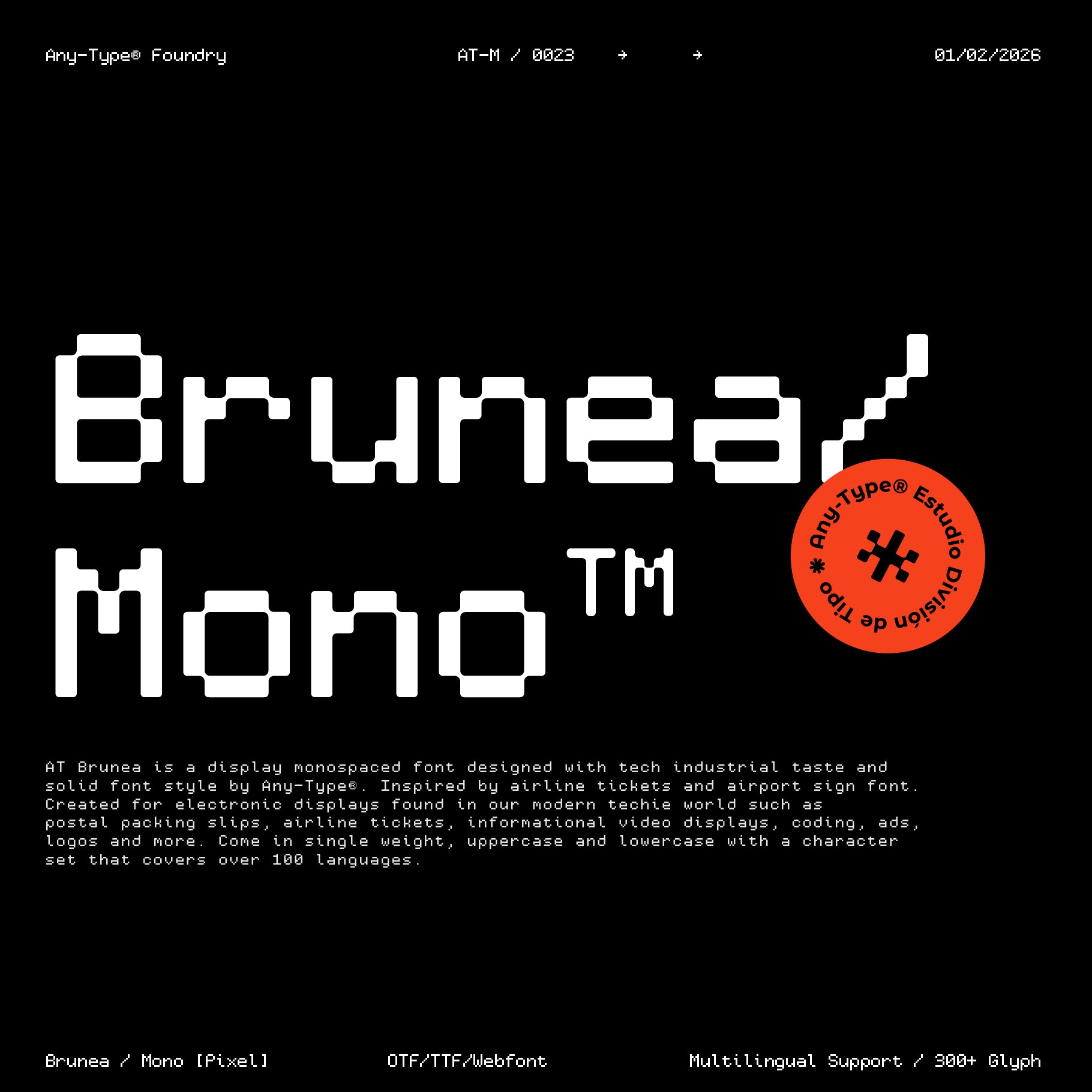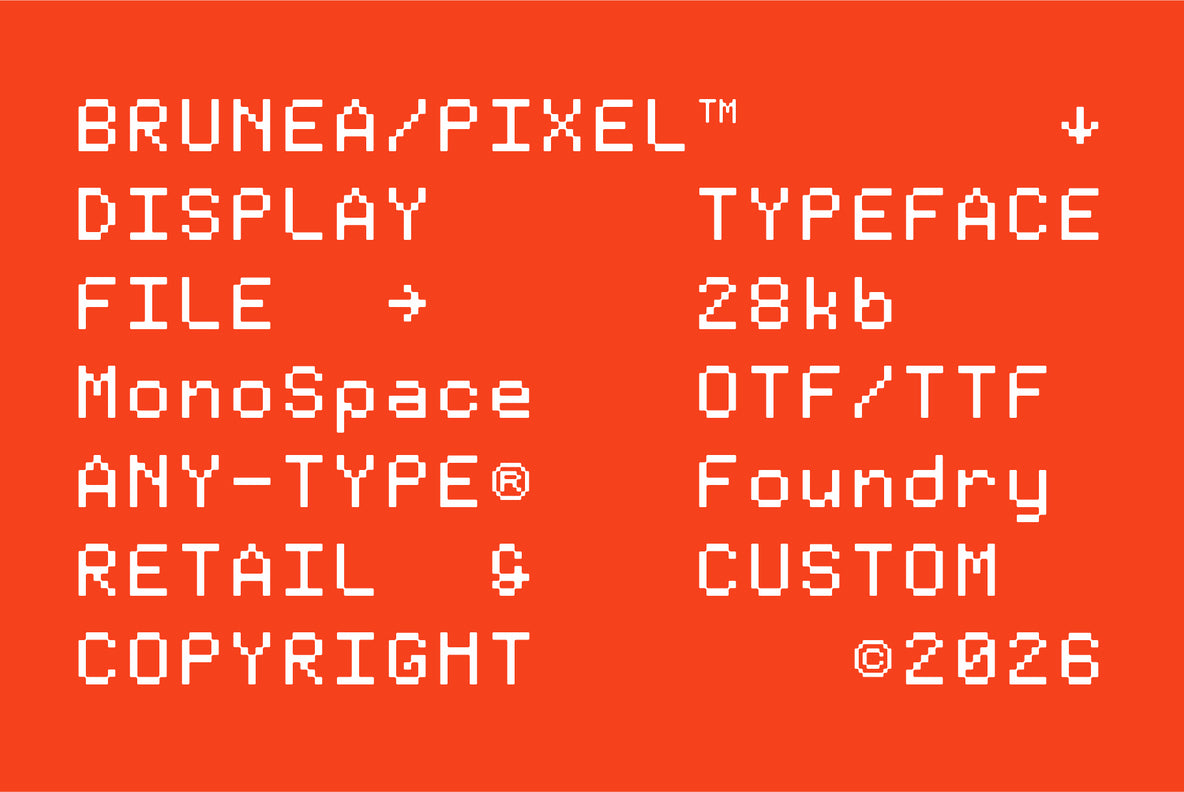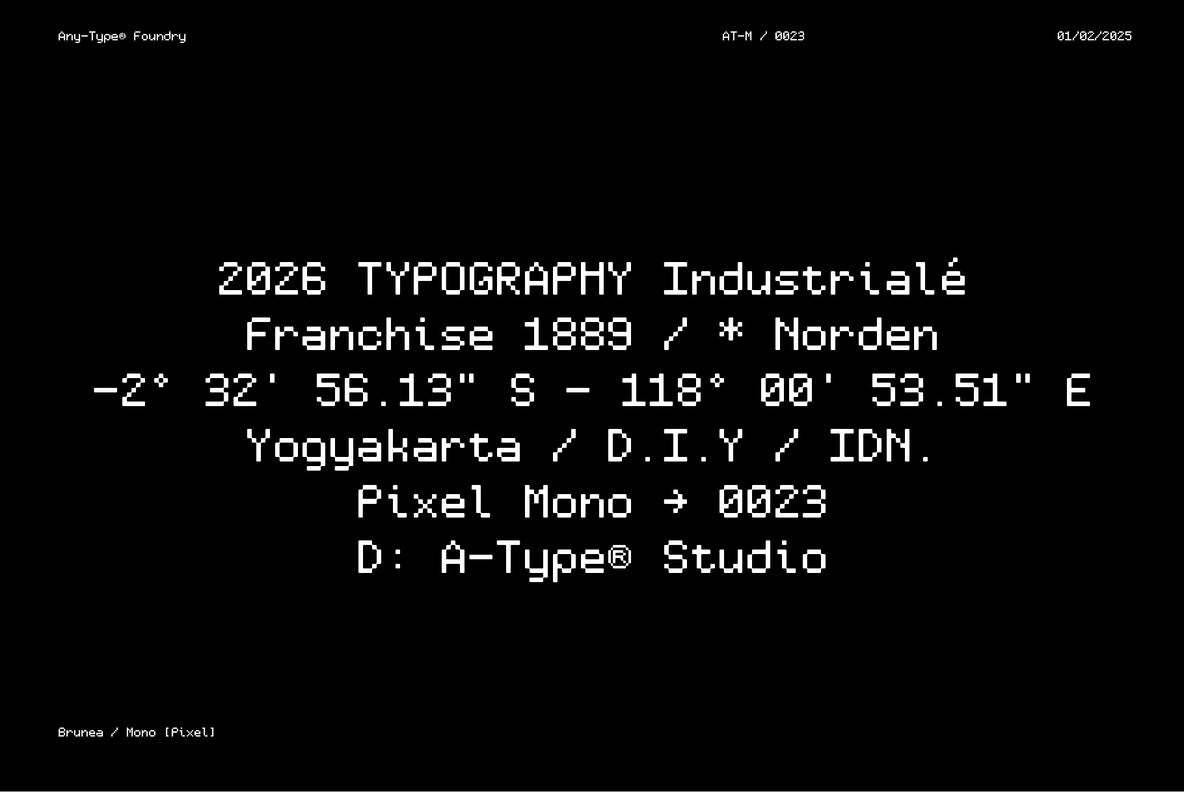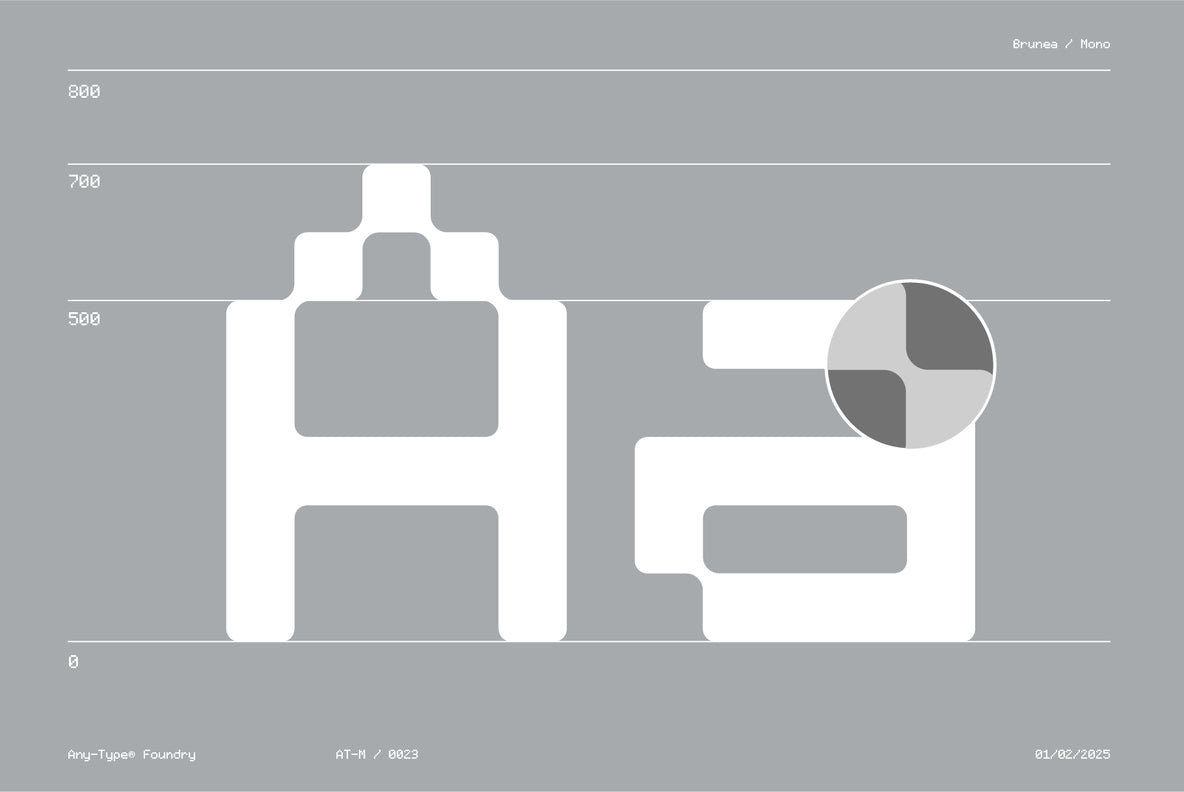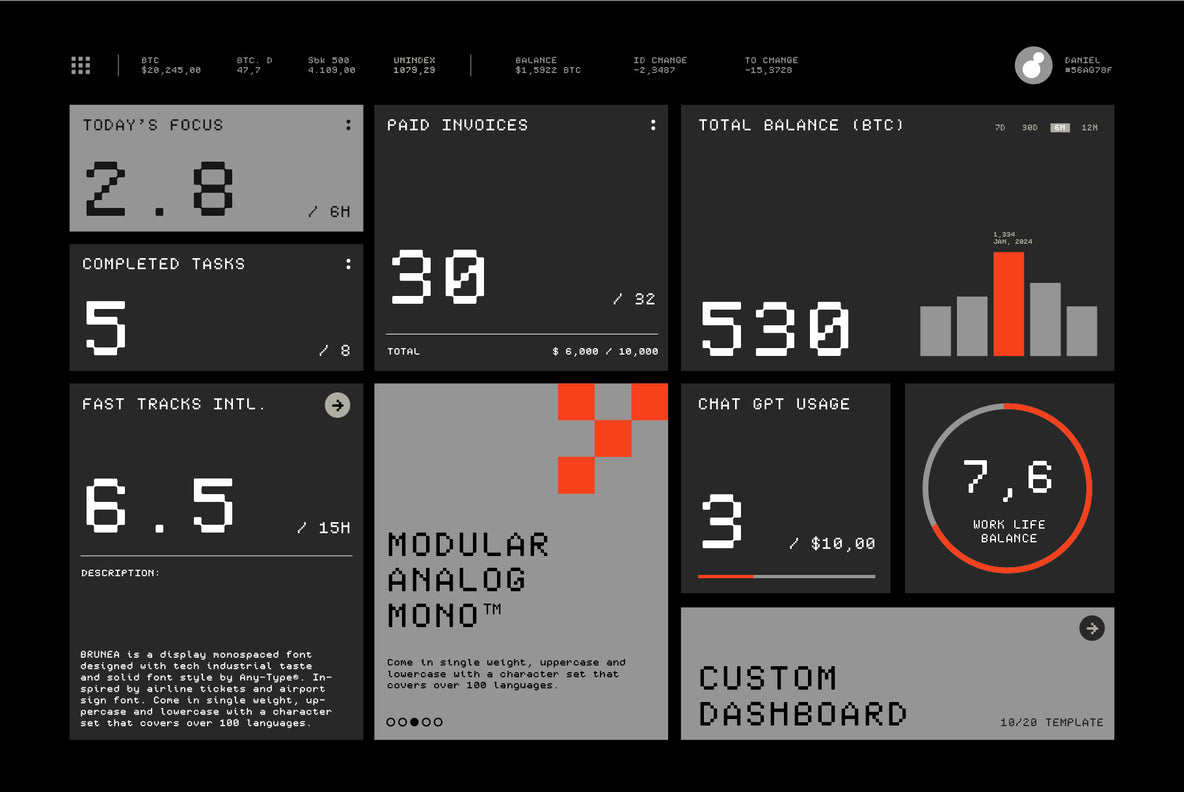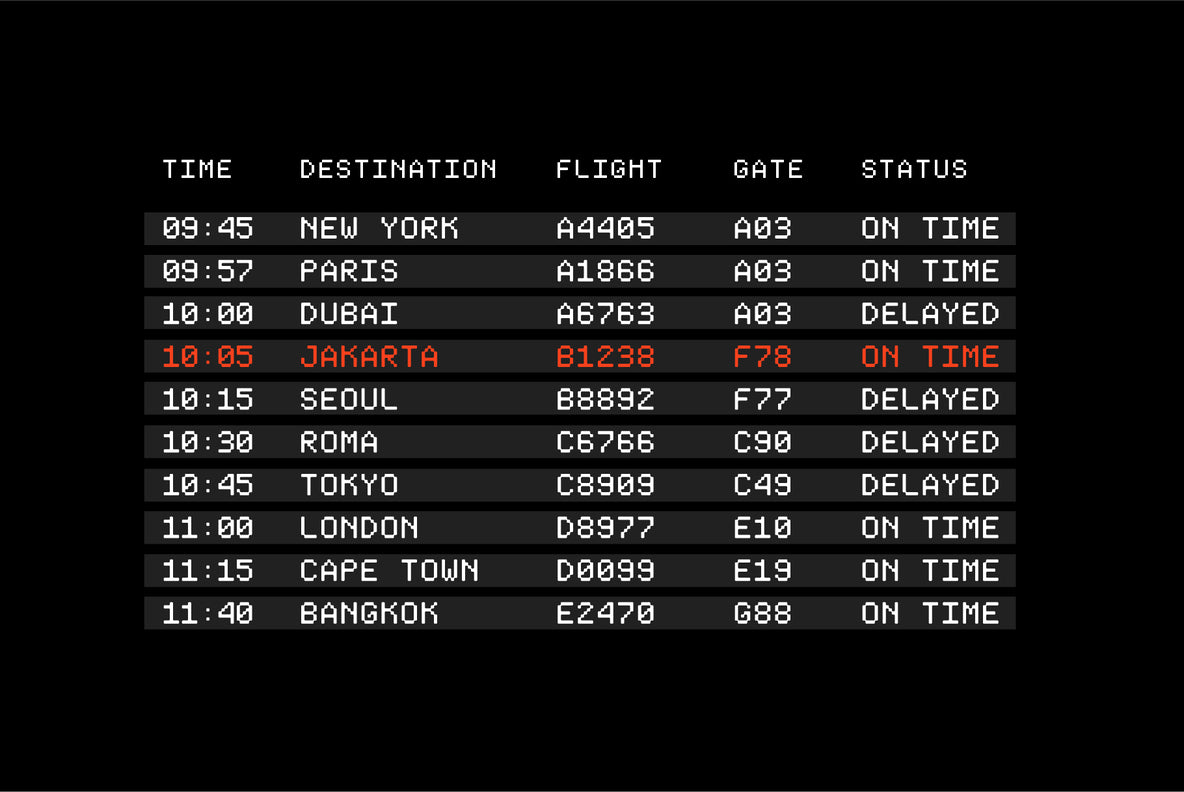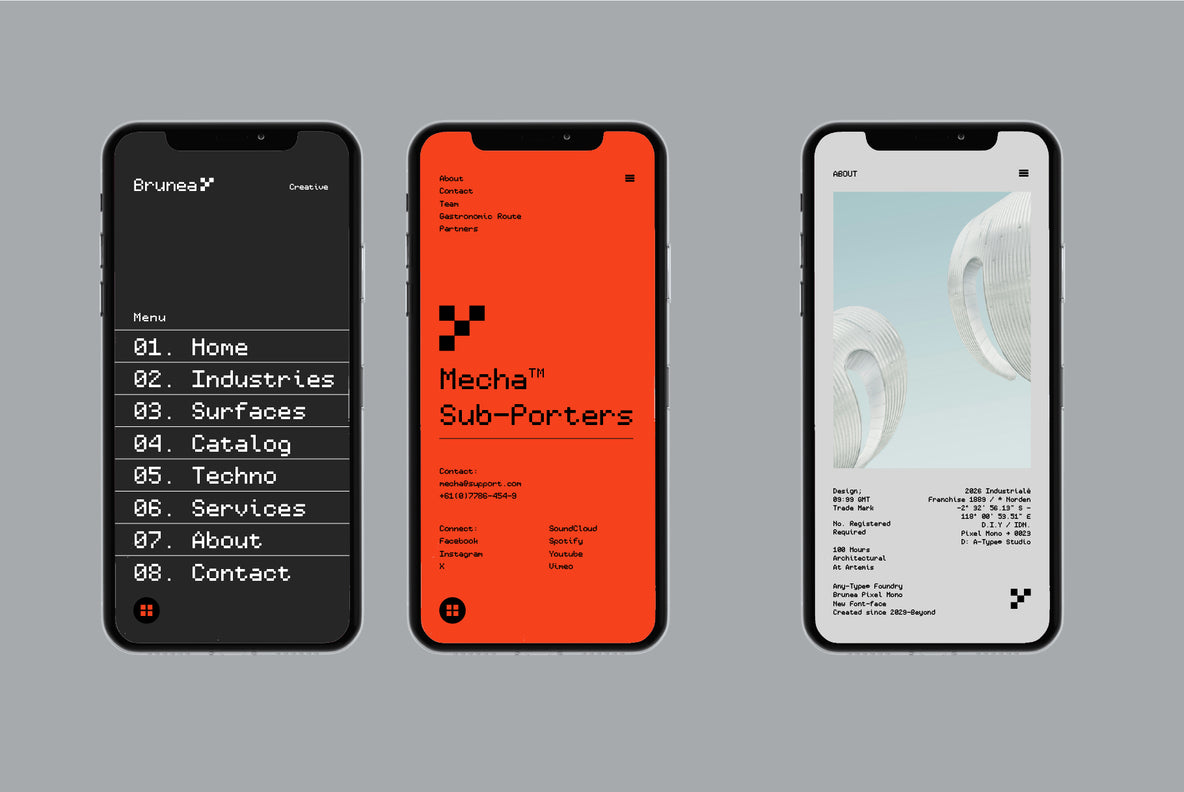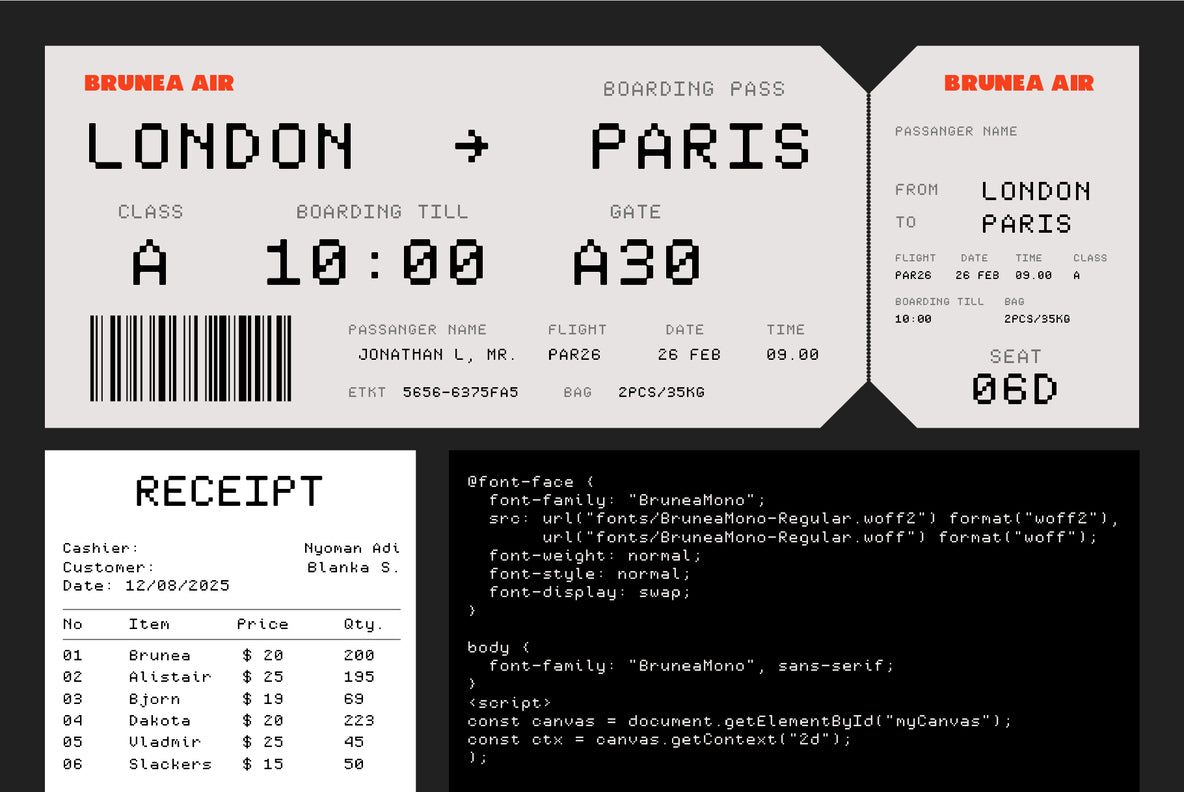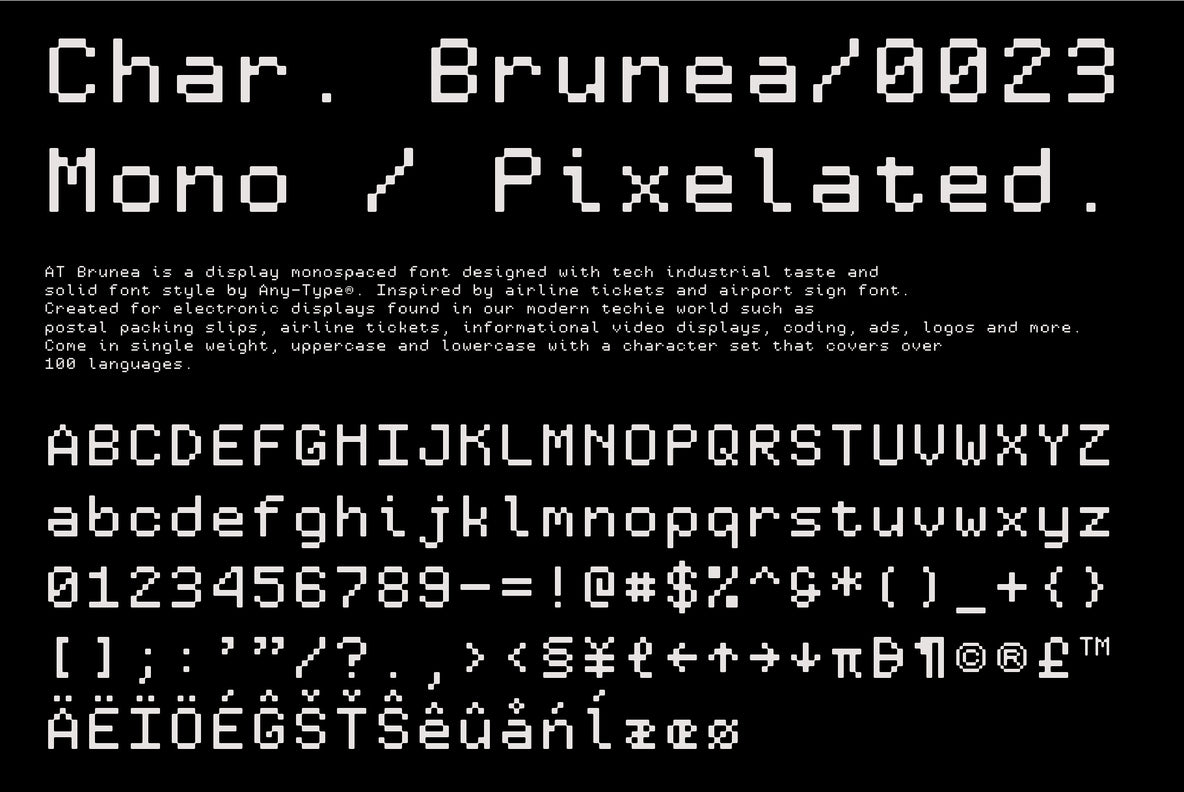
Brunea Mono – Pixel Monospaced Display Font
Brunea Mono is a modern monospaced display font featuring a bold pixel structure and a clean monospace grid, designed for clarity and precision in digital environments. It includes uppercase and lowercase characters, extensive punctuation, multilingual support for over 100 languages, and is available in OTF, TTF, and Webfont formats.